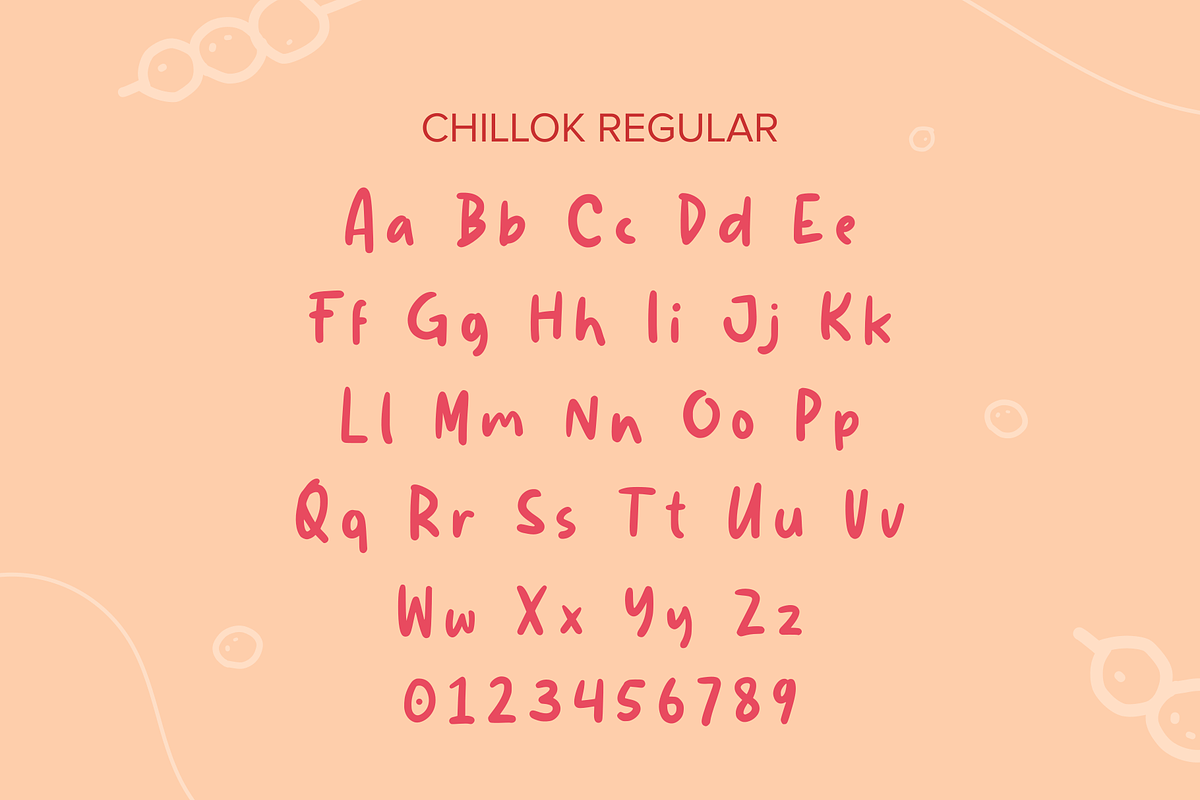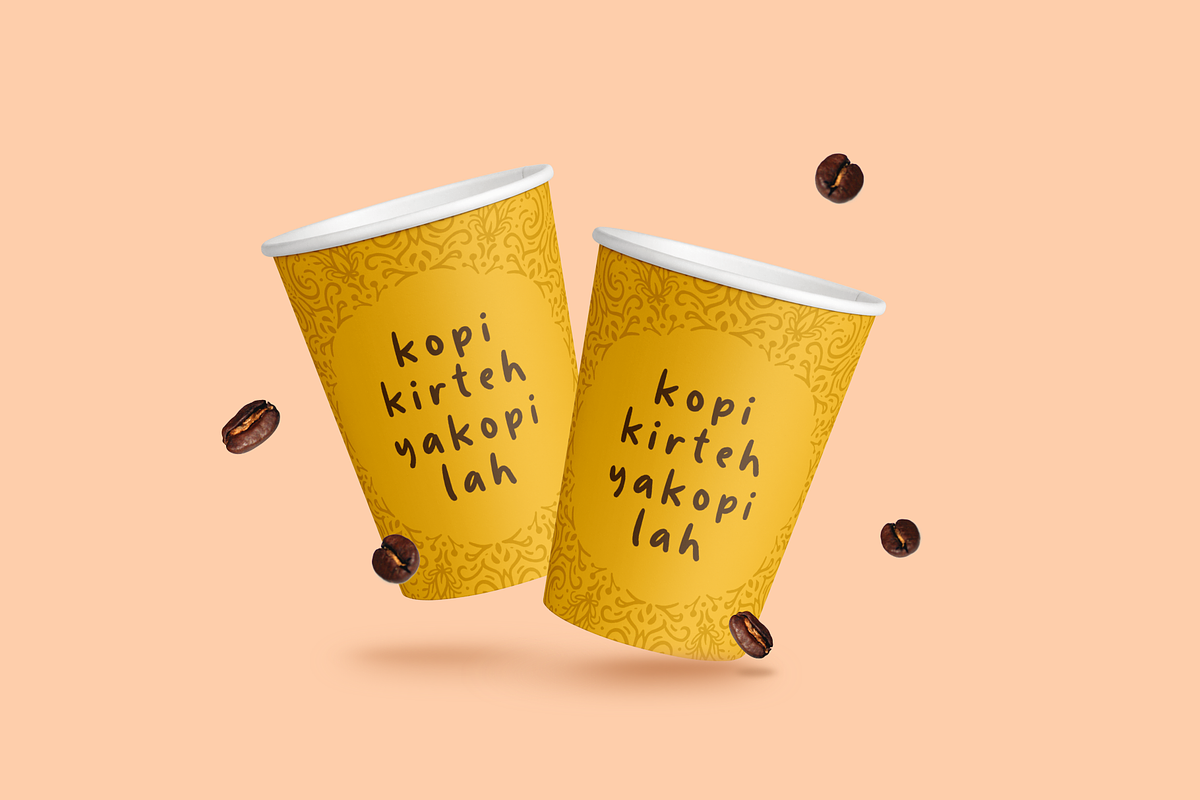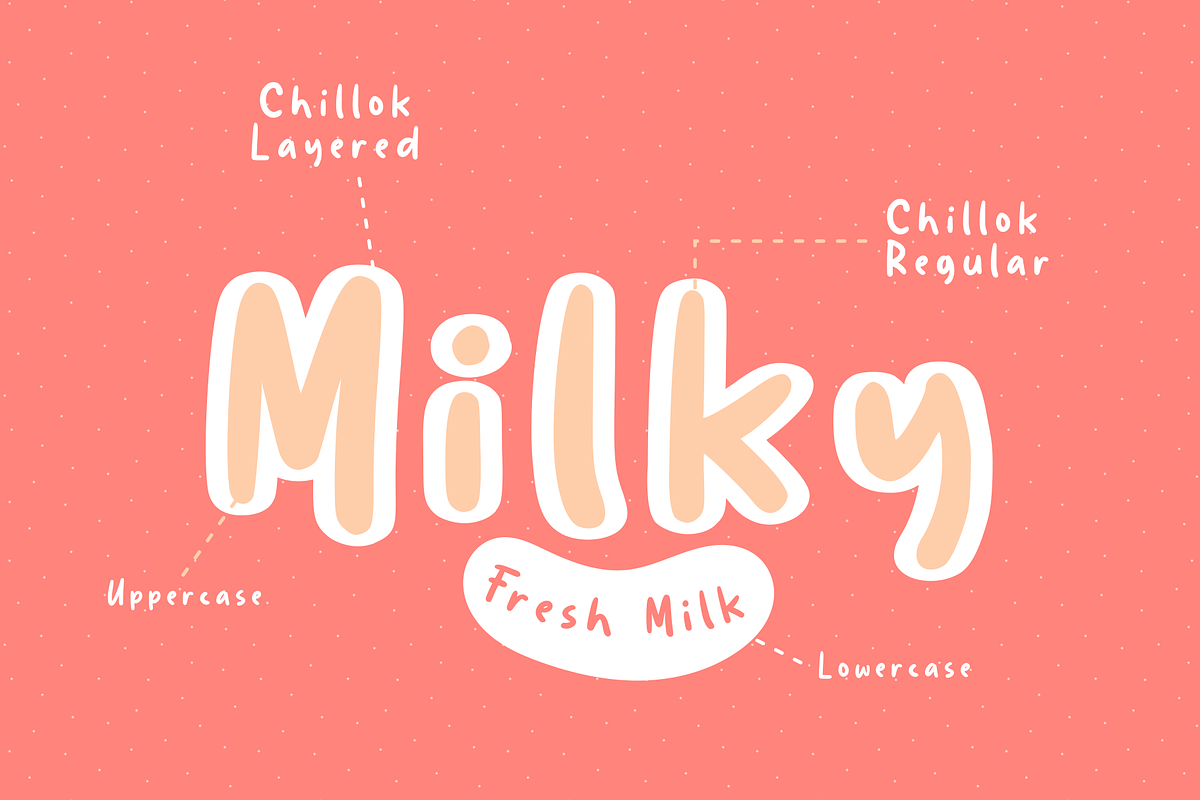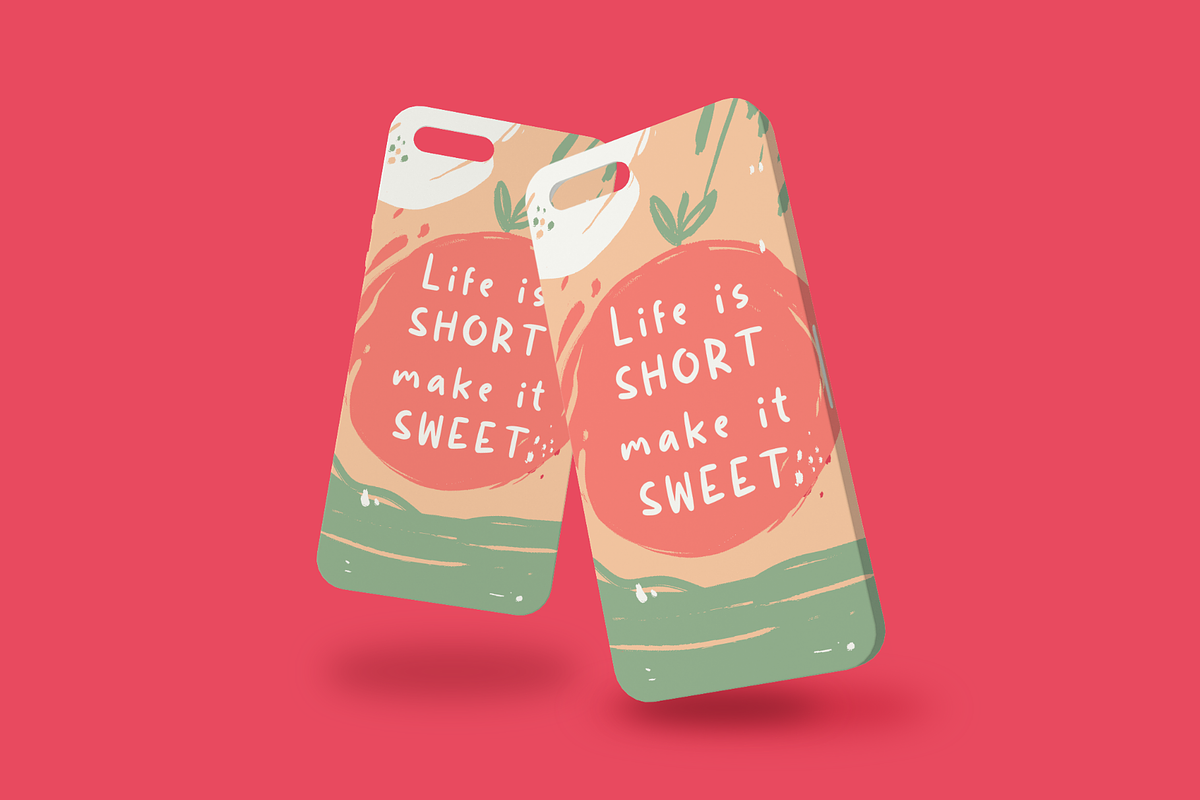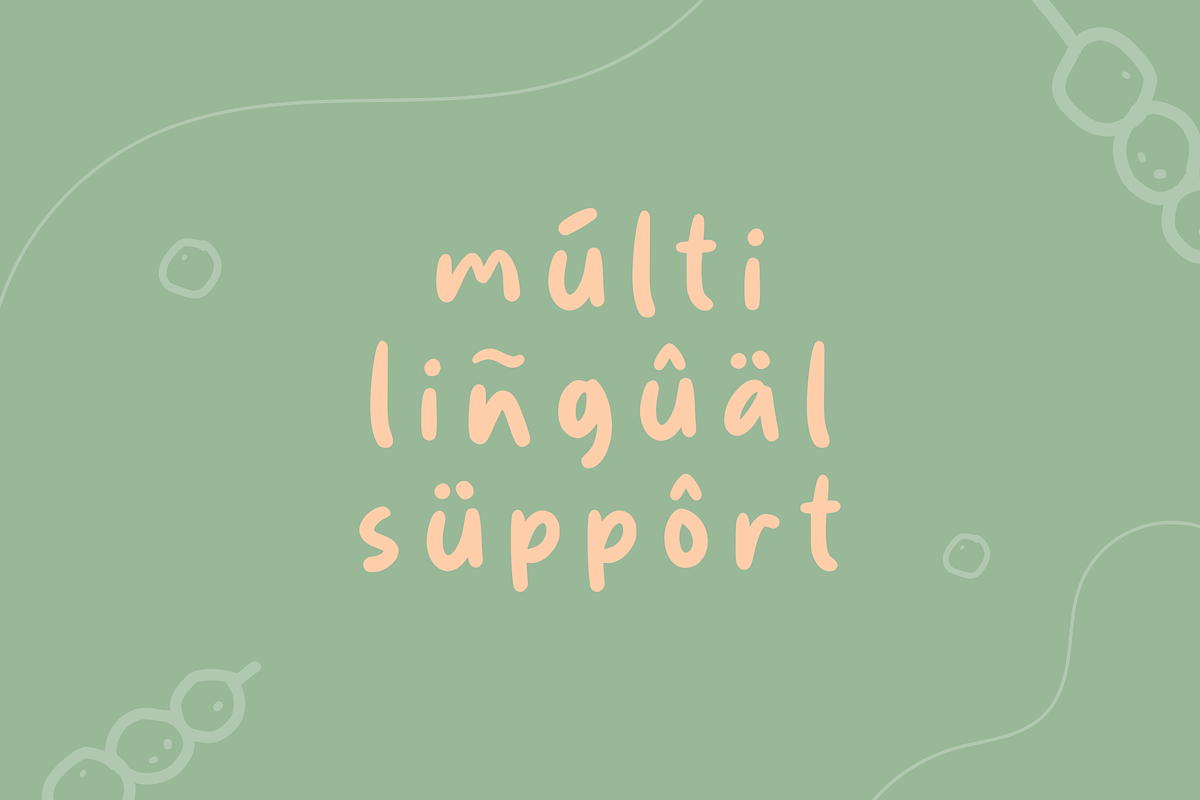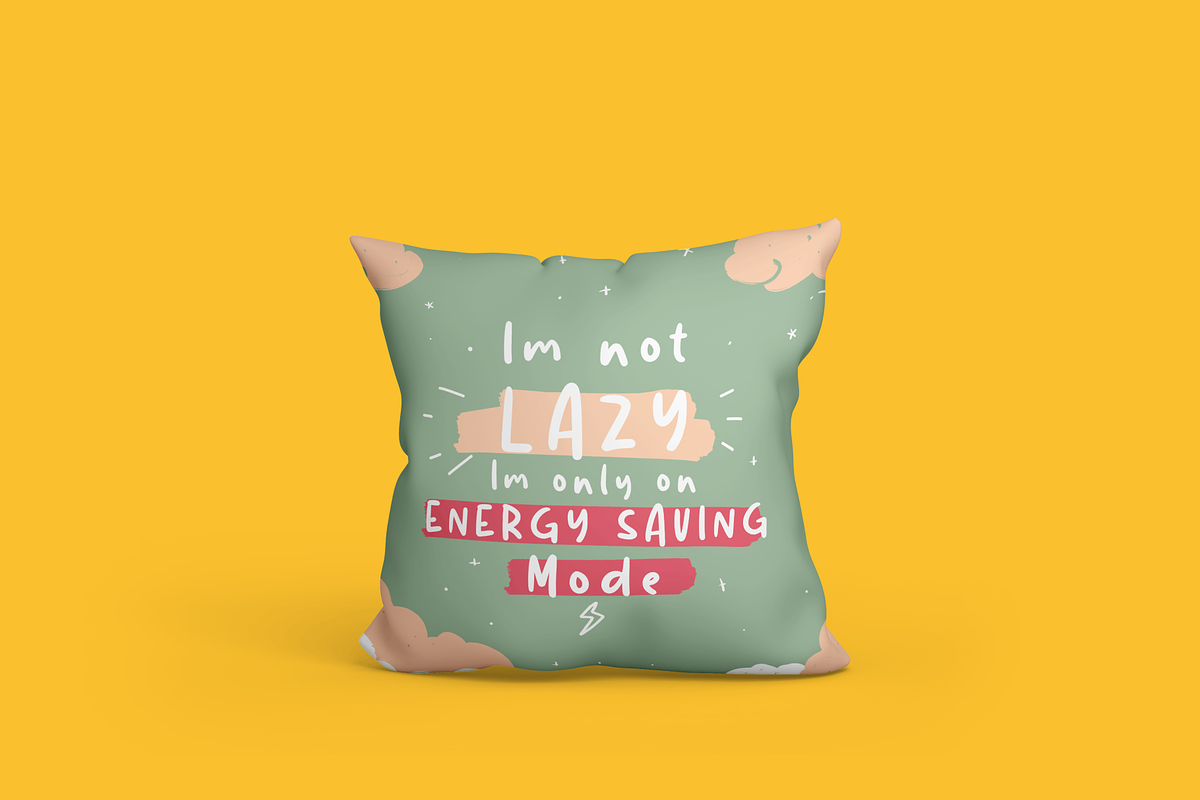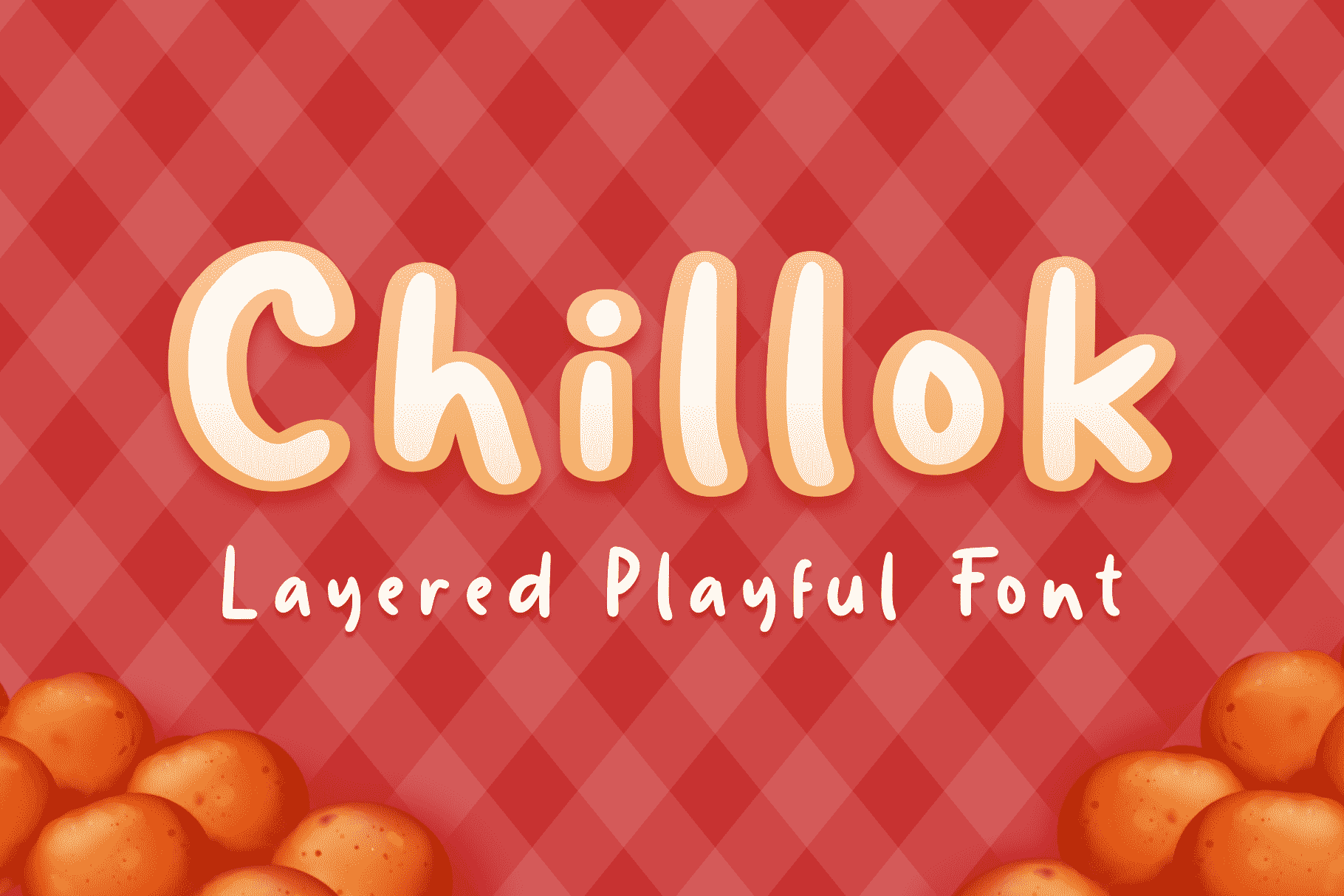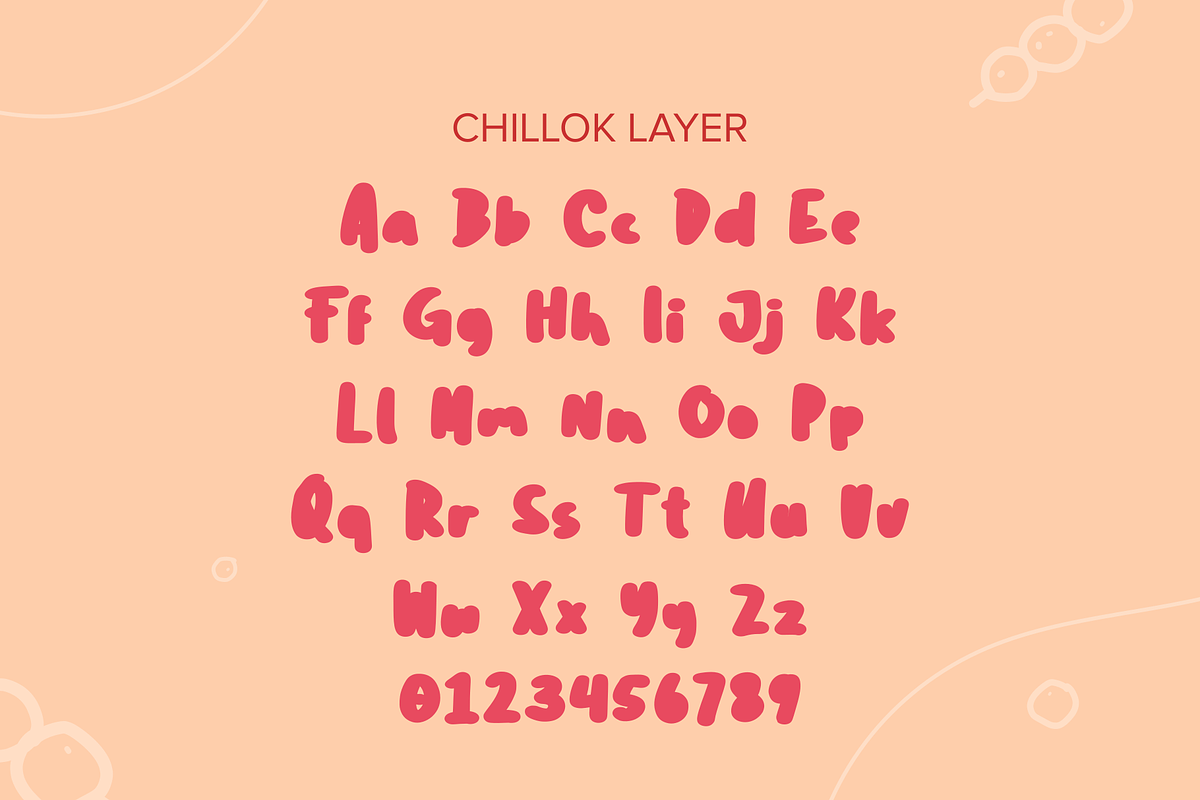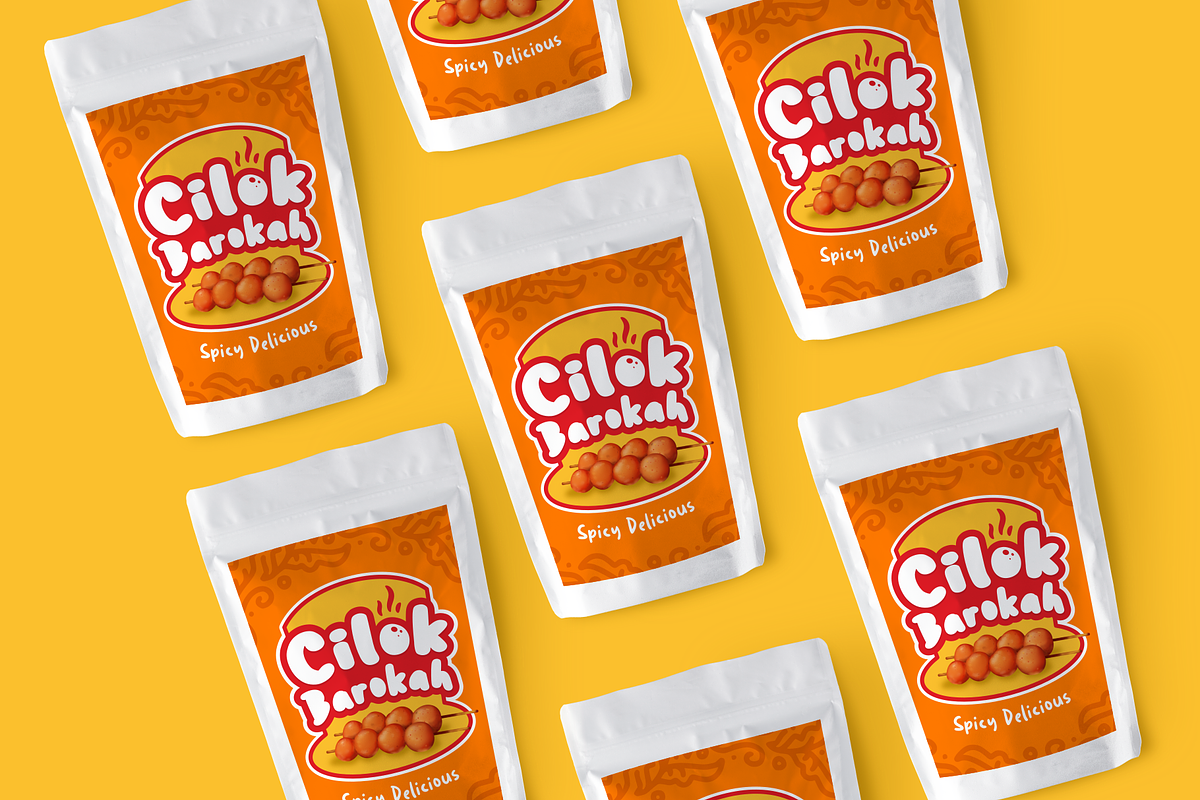
Chillok | Playful Font
Chillok is a sweet and cute yet playful handwritten font comes in two variant : Regular and Layered, you can mix them to create fun design. Perfect for quotes, handwritten notes, sweet greeting cards, packaging and of course stand-out branding etc. Features :
- Multilingual support : Afrikaans, Albanian, Danish, Dutch, English, German, Italian, Norwegian, Portugese, Spanisch, Swedish, Zulu.